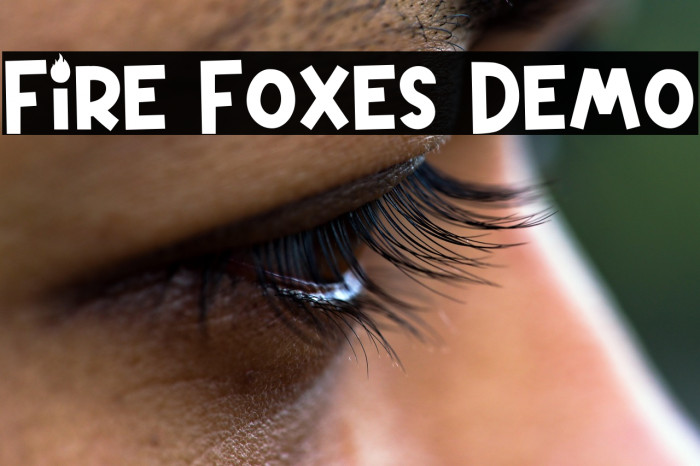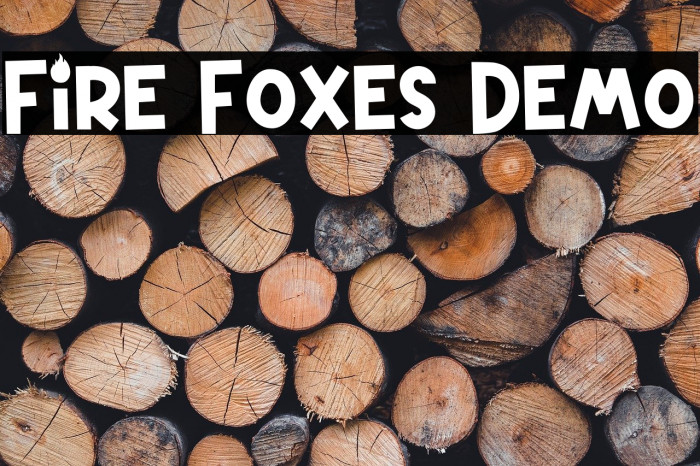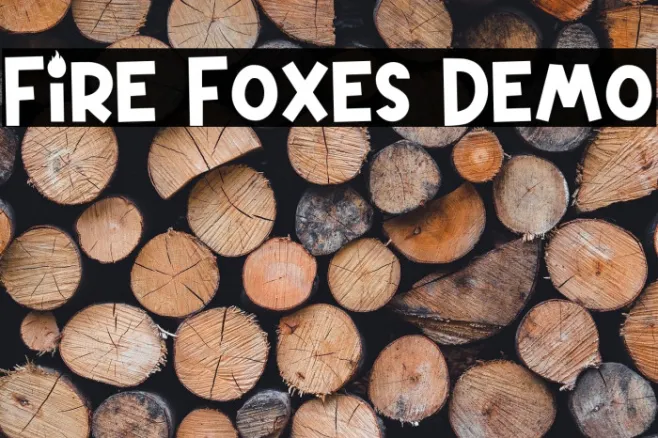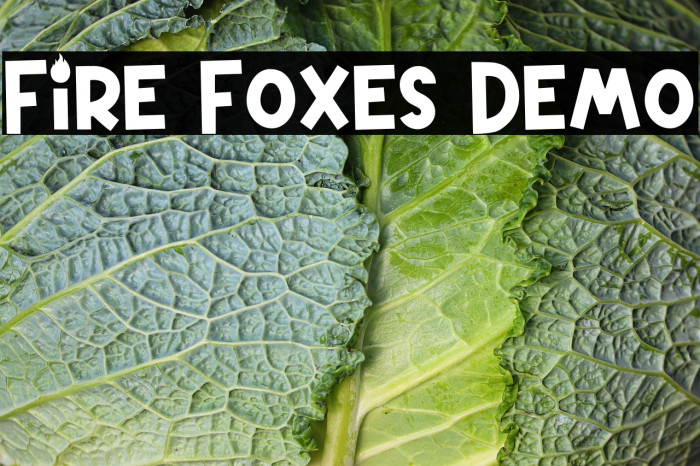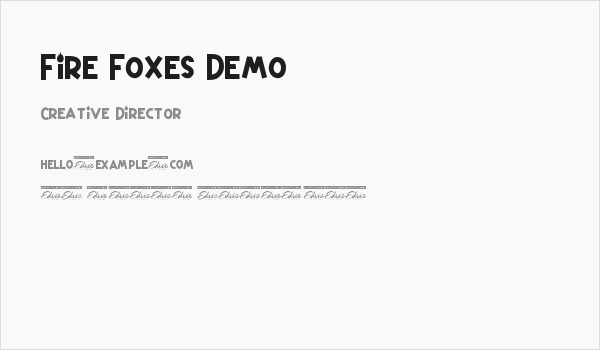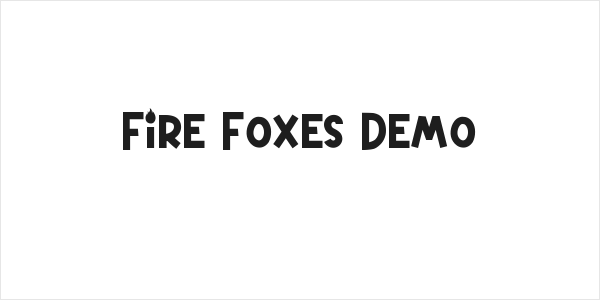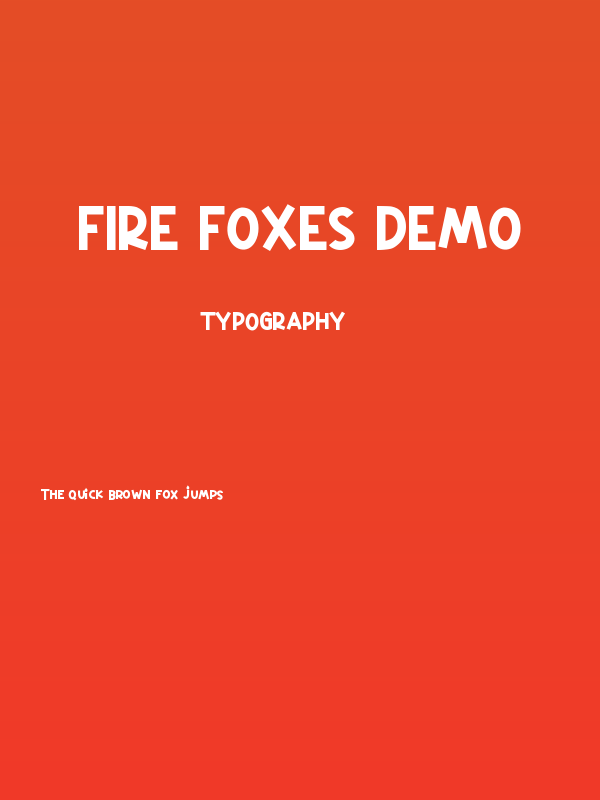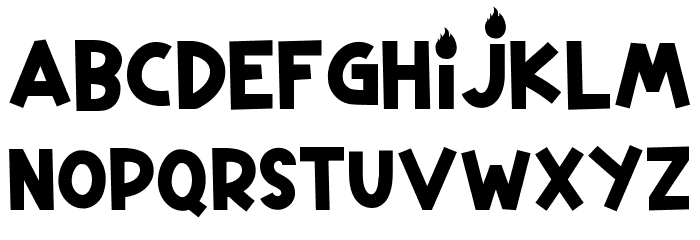
Fire Foxes Demo Font
Fire Foxes Demo Description
This font features a bold and playful style with a slightly irregular baseline that adds a dynamic and energetic feel. The uppercase letters are characterized by thick strokes and a slightly condensed form, giving them a strong presence. The lowercase letters maintain the same boldness, with unique elements such as a flame-like detail on certain characters, adding a whimsical touch. The overall design is modern and eye-catching, suitable for projects that require a fun and engaging typeface.
| Proposed Projects | Ideal for children's books, playful branding, event posters, and creative advertising. |